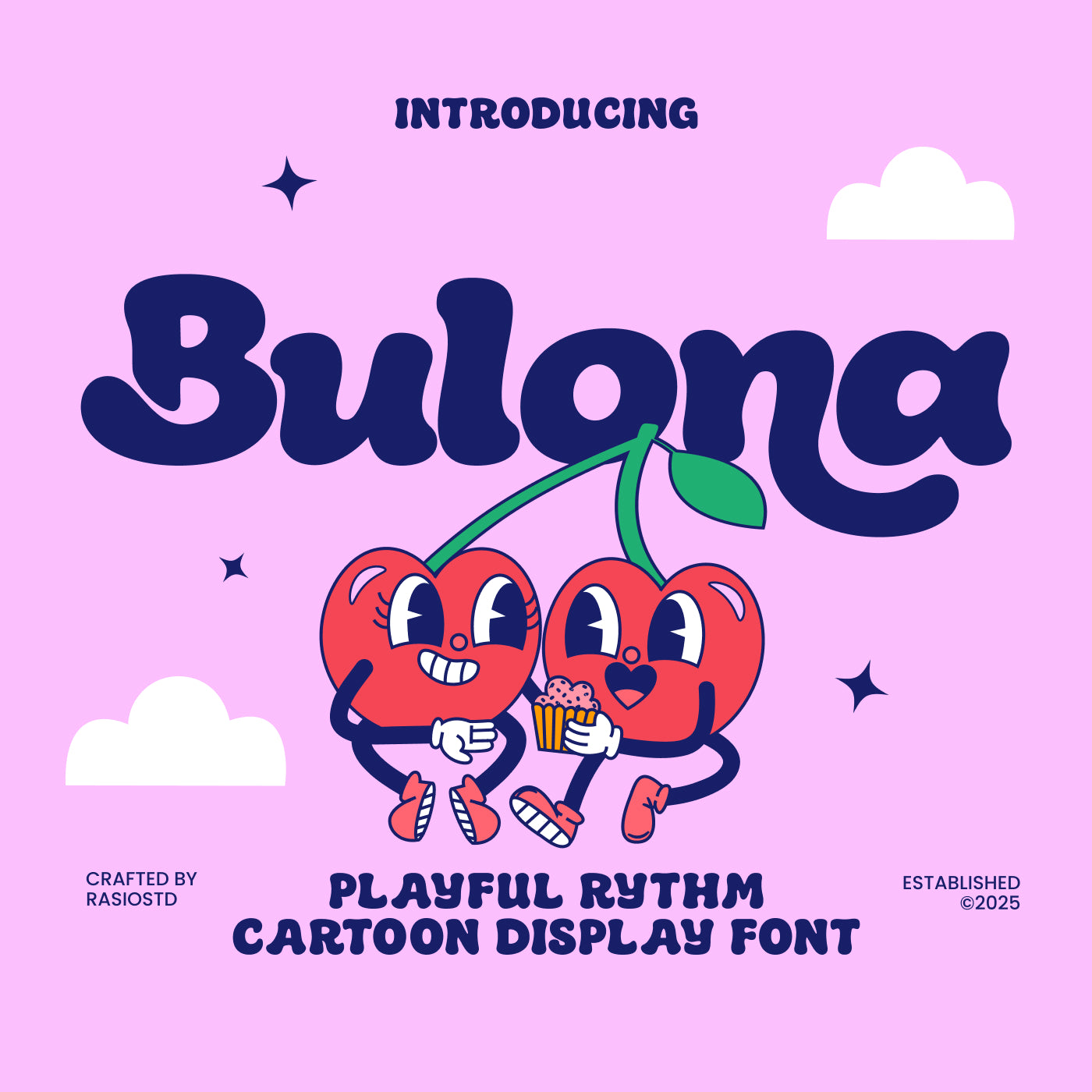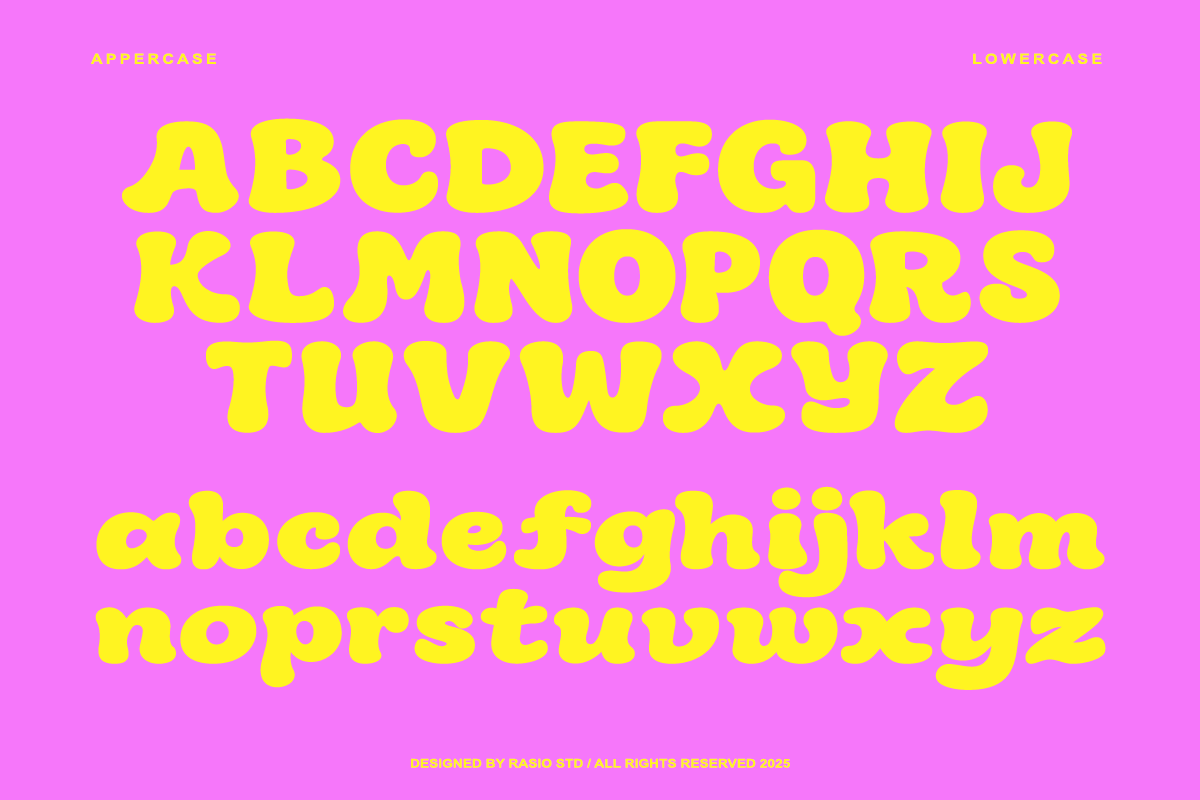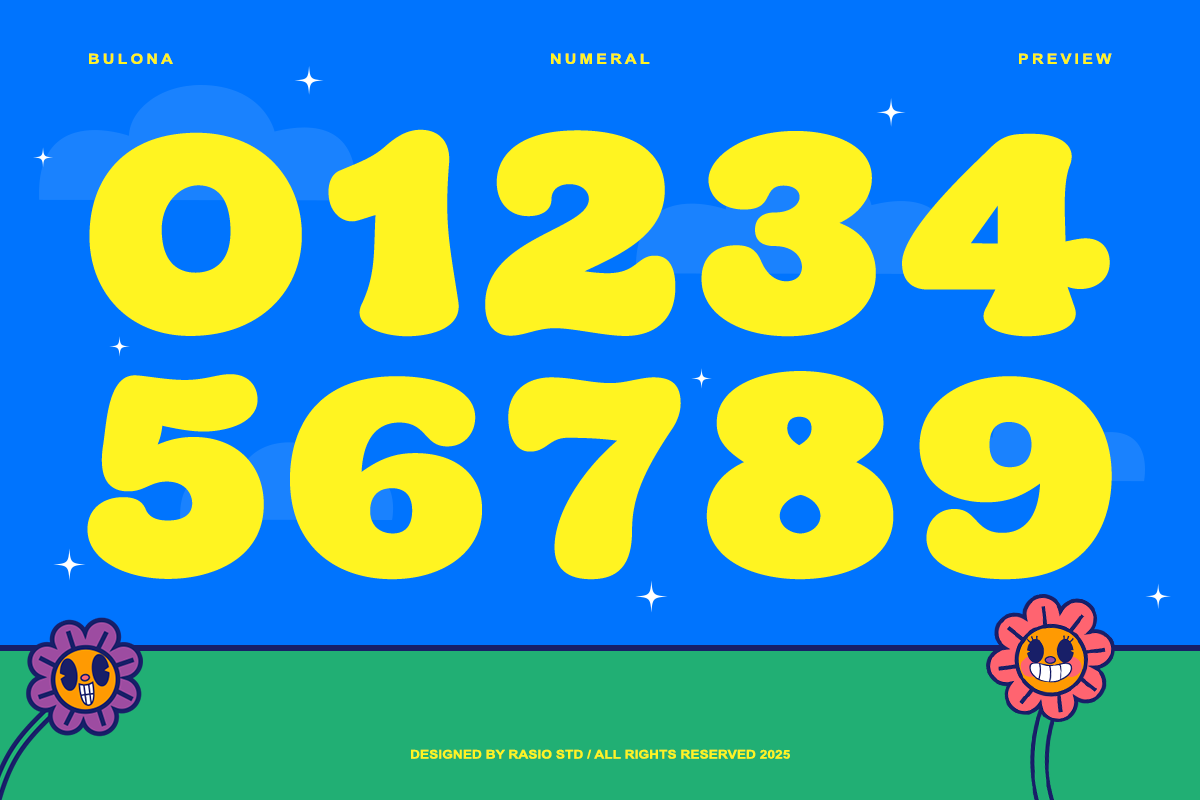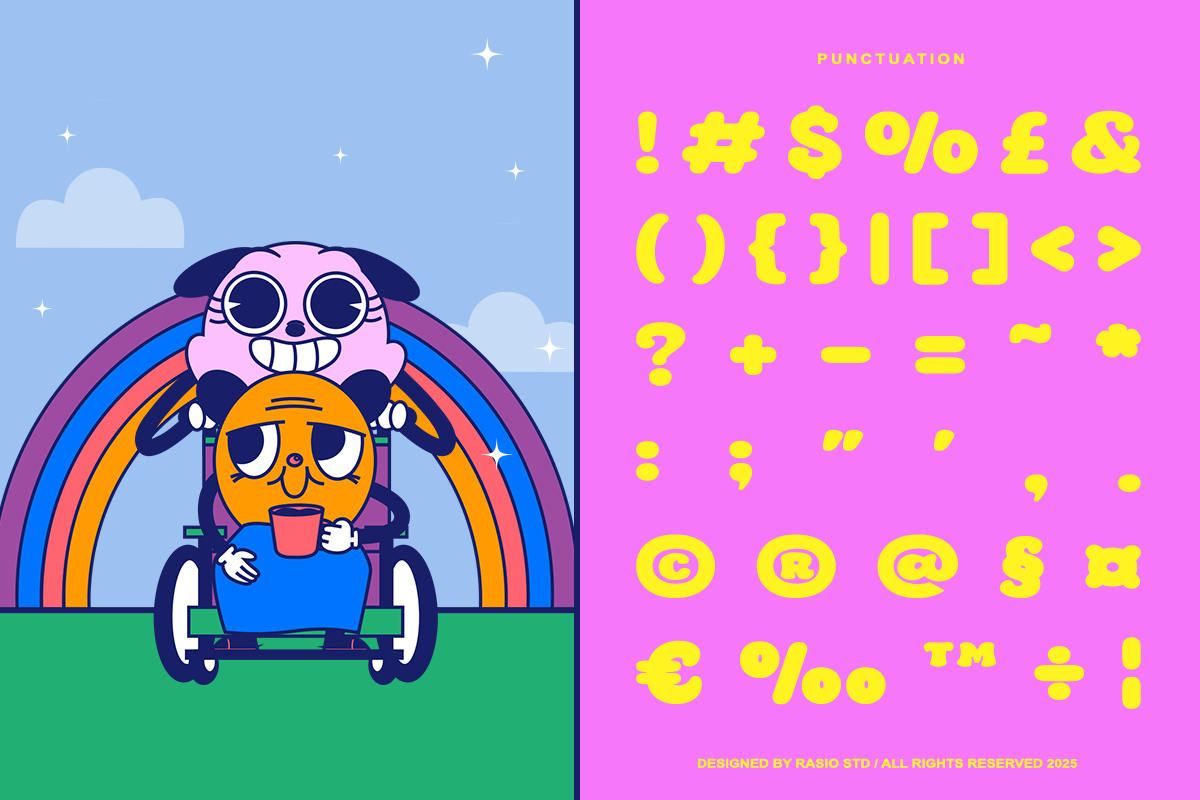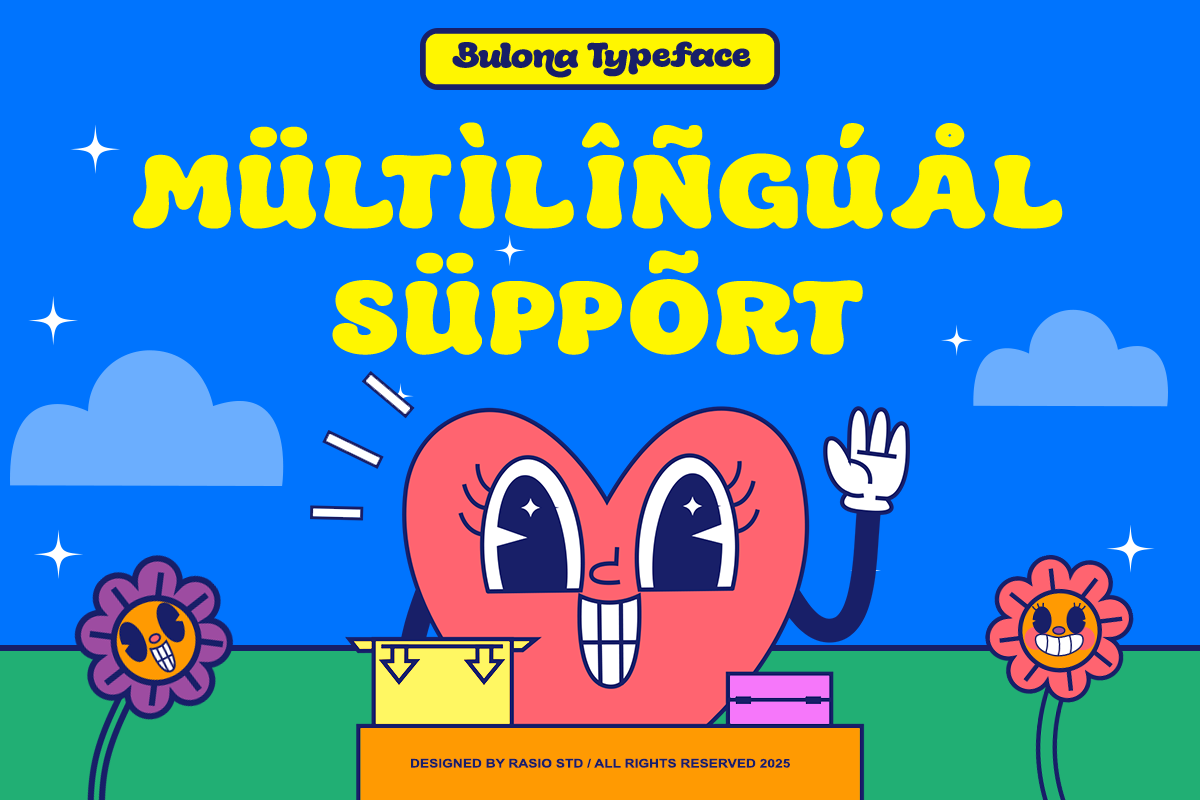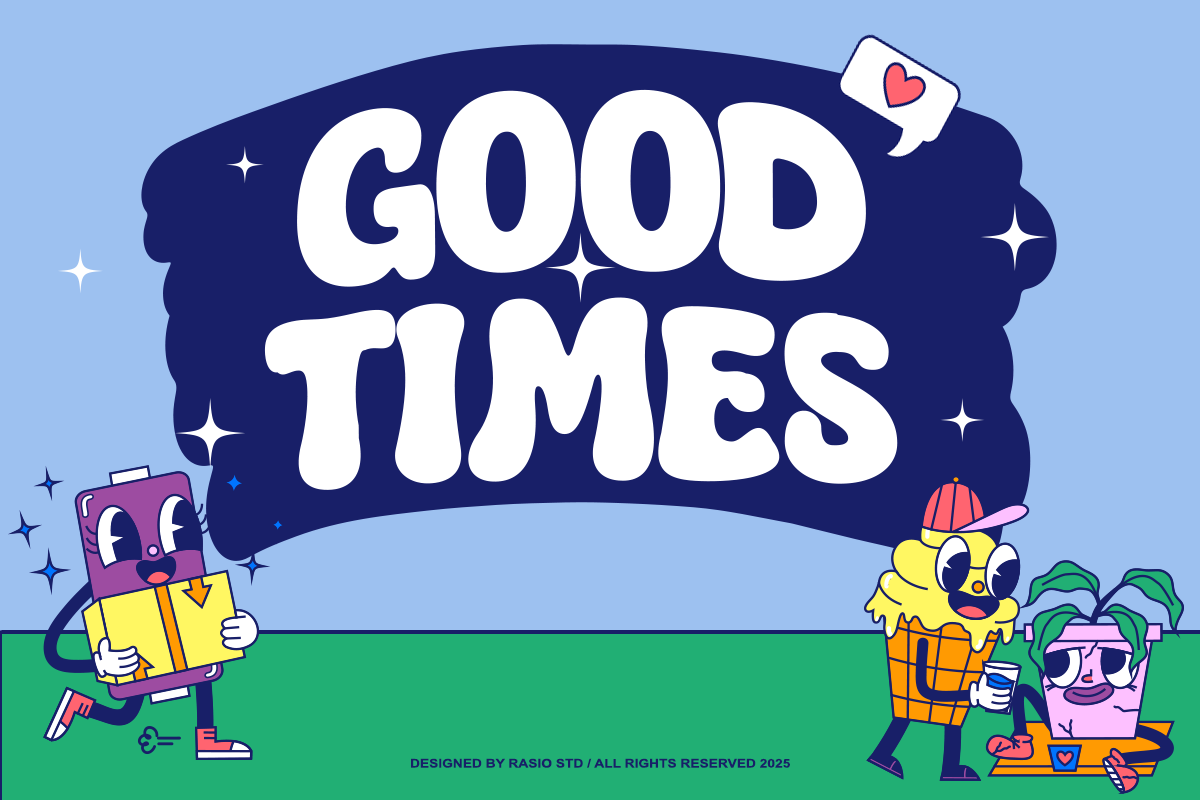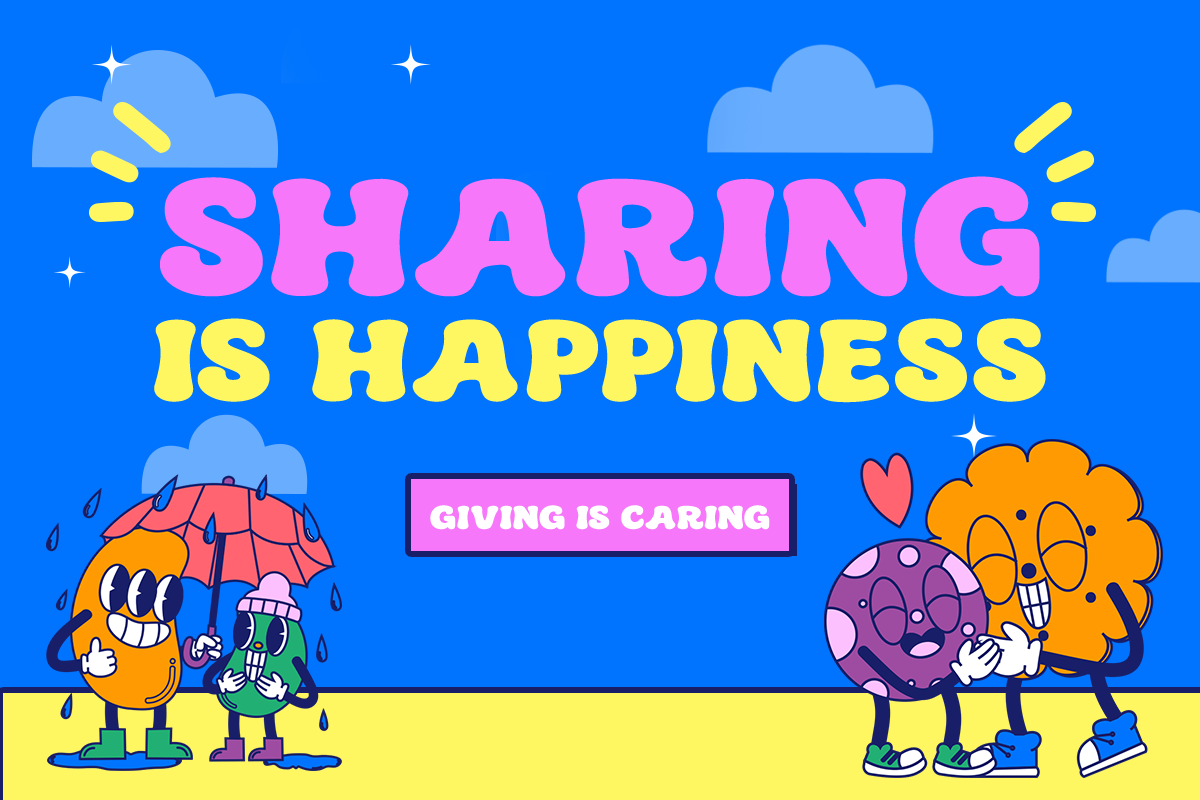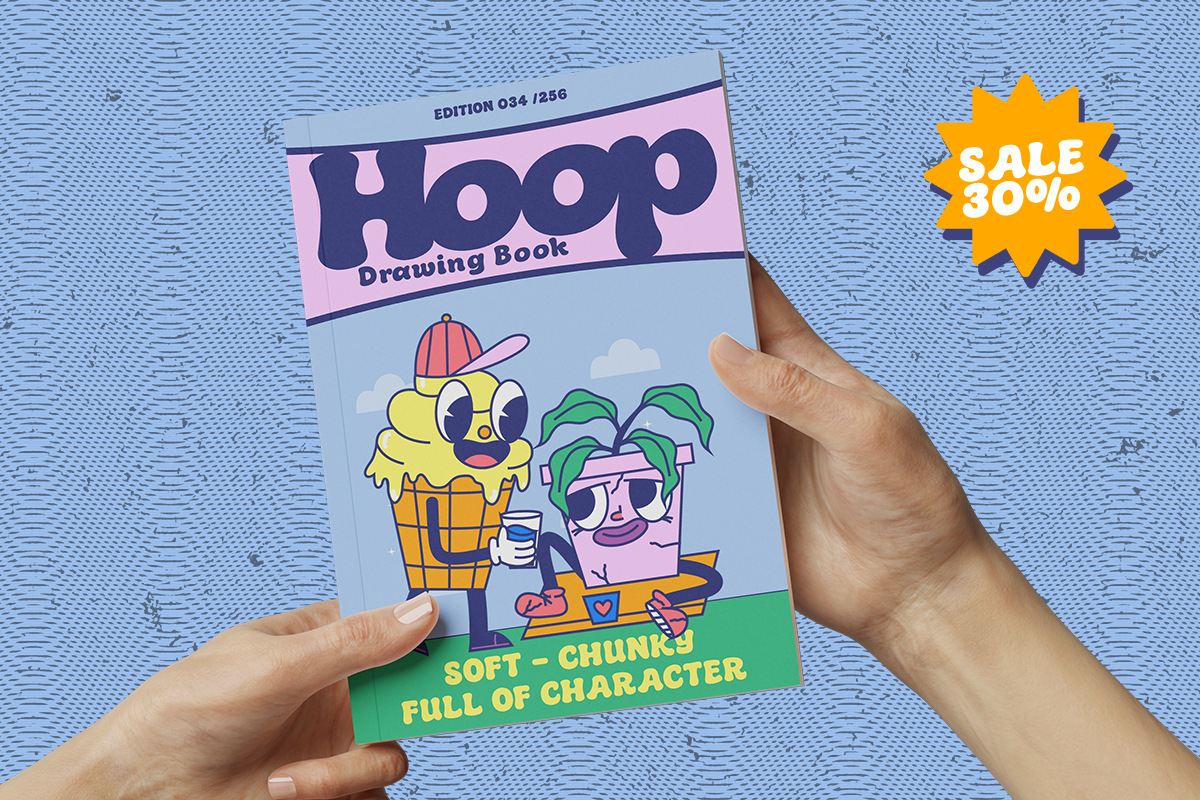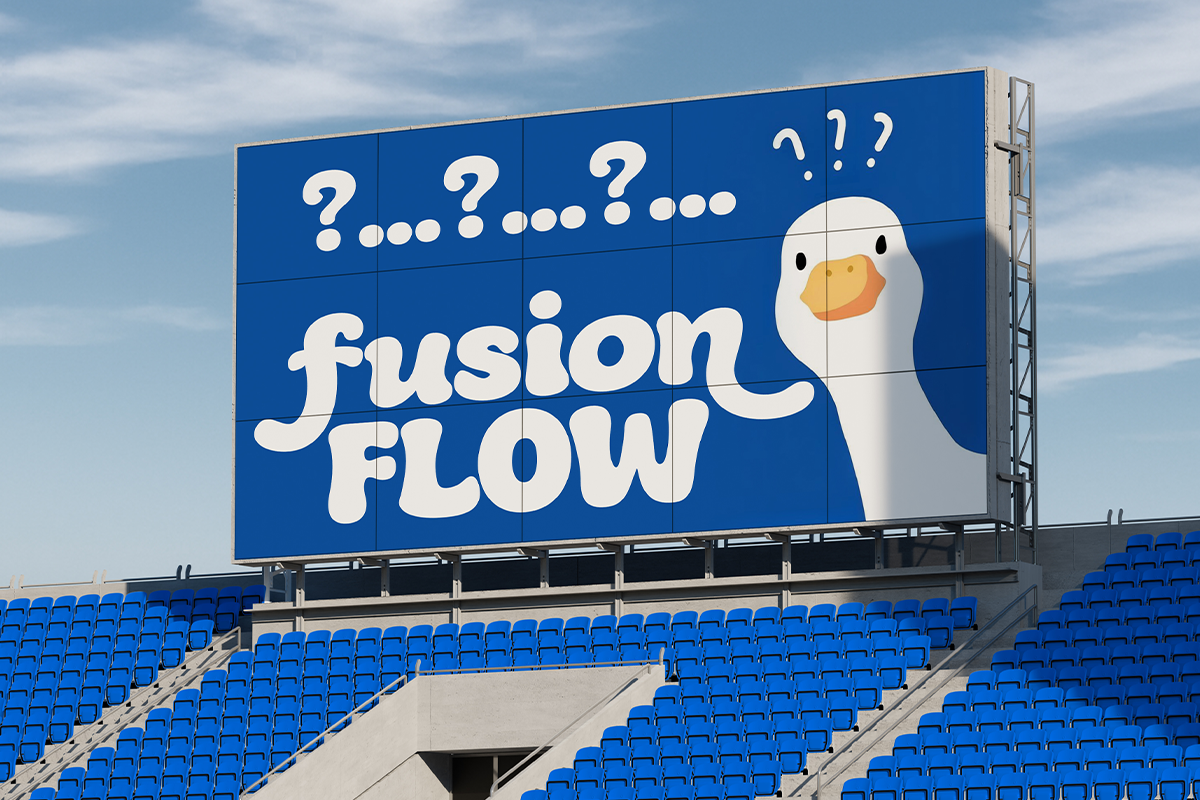
Bulona Playful Rythm Cartoon Display Font
Bulona is a playful fun display font bursting with cheerful energy and cartoon-like charm. Featuring bouncy shapes, rounded edges, and bold curves, this typeface captures a lively and friendly personality that instantly brightens any design. Its soft rhythm and organic flow make it perfect for headlines, children’s projects, packaging, or creative illustrations.
With multilingual support and a full character set, Bulona brings joy and whimsy to every word a delightful font for designers who love expressive, colorful, and animated typography. Relevance and Use Cases is perfect for children’s books, toy packaging, game titles, cartoon posters, creative branding, playful logo design, and social media visuals with bright and joyful moods.
Numerals & Punctuation
Playful Rounded Style
Bulona is a display font featuring rounded shapes, bold curves, and a cartoon-style design. It includes uppercase and lowercase characters, numerals, punctuation, and multilingual support, available in TTF, OTF, and WOFF formats.